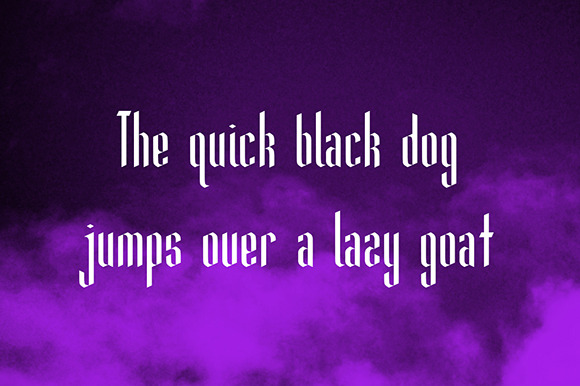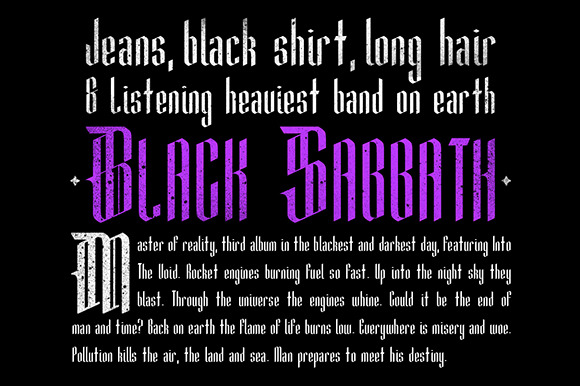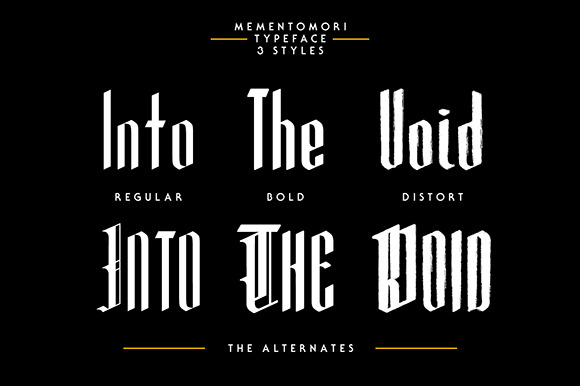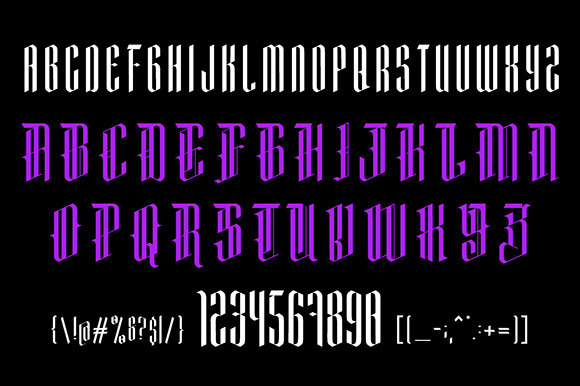
About Memento Mori Font
Memento Mori typeface is a modern, blackletter font for display or medium look body text with a Gothic theme. It is inspired by the heavy metal band; Black sabbath & wrestling legend, the Phenom, Undertaker. The Gothic style is combined with a condensed feel and that gives a modern look